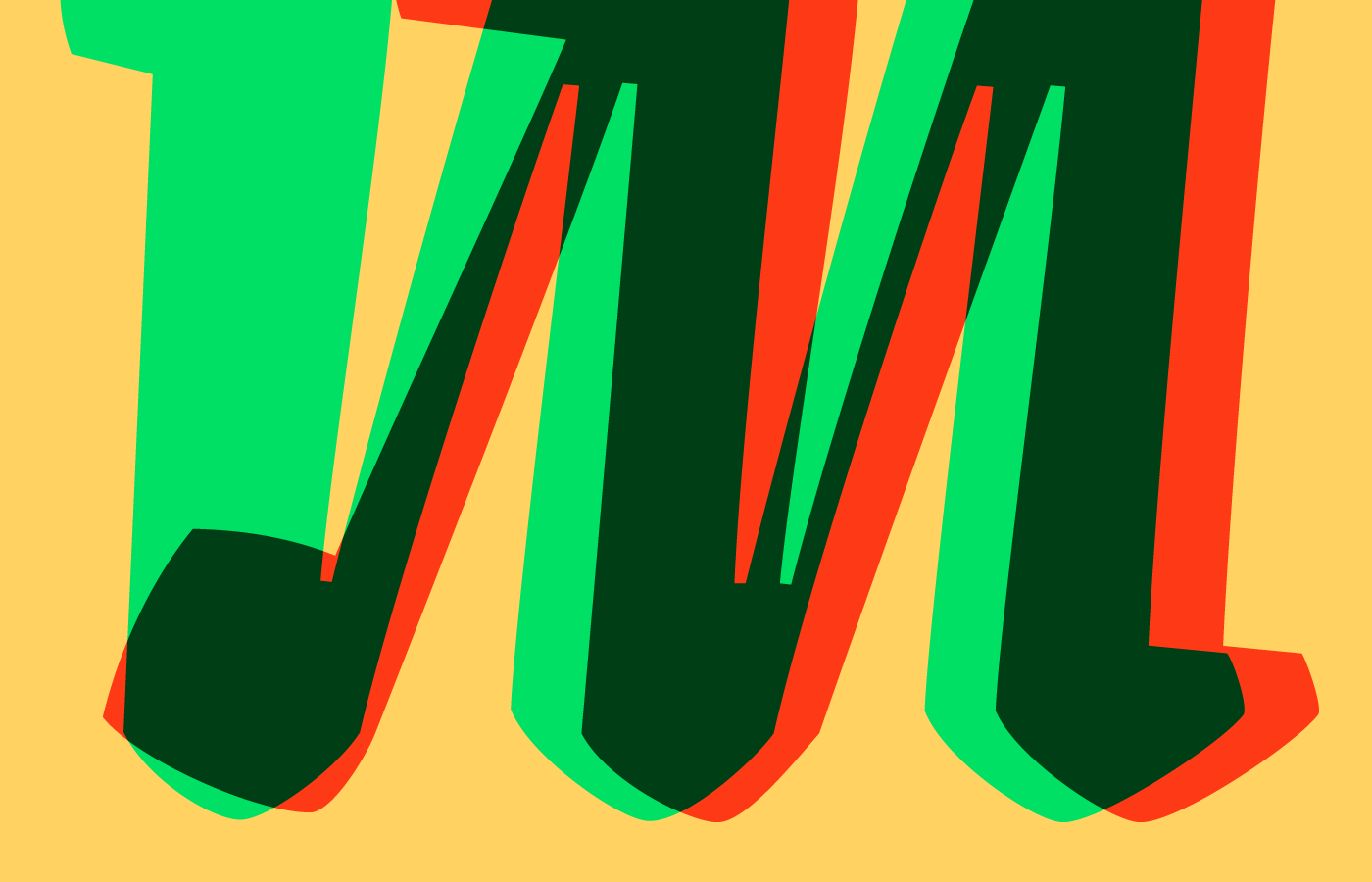
Making Type: Joana Correia of Nova Type Foundry
Welcome to the fourth in the Making Type series, where I ask type designers a few questions on fonts, design, process, and creativity. My hope over the years with this blog has been for it to be a resource for inspiration and education on how to, well, make type work. This series focuses on how the people behind the fonts themselves get inspired and what drives them to create.
Joana Correia is a type designer originally from Porto and now based in Vienna. She runs Nova Type Foundry, cultivating sunny fonts for warm humans. She is multitalented with an MBA and Executive Coaching degree informing her practice. She also started a new project recently — Ligado Studio — which we’ll hear a little more about in the interview!
I love the warmth and personality of Joana’s fonts, and it’s great to have them available in the Adobe Fonts library. I often find myself reaching for them and was thrilled to get ask her some questions!
What was the initial spark that got you into type?
As a child I was an avid reader, and always loved beautiful handwriting. I was drawn to letters more than images from a very young, but back then I had no idea what graphic design or typography were. I studied architecture and only later graphic design. So my first contact with type design came much later during my typography classes with Dino dos Santos, a type designer from Porto. I was immediately drawn to letter shapes, and to the process of designing with a font editor. It was a revelation for me.
Another event that sparked the idea that I could design typefaces came from a talk by Alejandro Paul from Sudtipos at my school. It got me hooked on commercial typefaces and handwriting fonts.
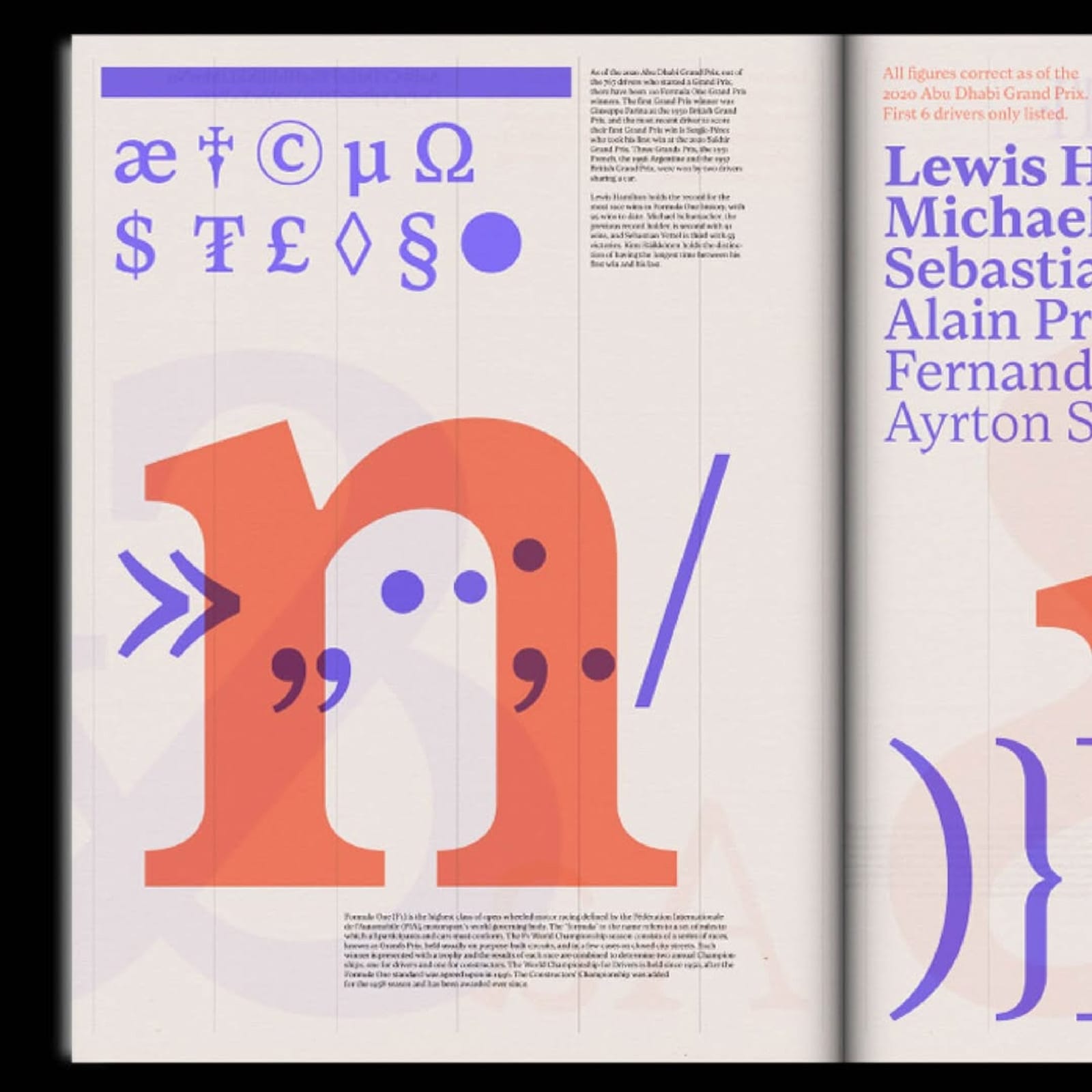
How did your time studying type design at the University of Reading shape your practice?
Studying at the University of Reading was crucial for my career. It was an intensive immersion on type design, through practice but also we were exposed to history and printed materials in amazing classes by James Mosley and Michael Twyman. During the year I learned how to see the patterns, connected them to history and to calligraphy, and create my view and expression in type design. We had many teachers but our main teacher was Gerard Unger who was an emphatic and inspiring teacher.
I’m curious how the type design scene is in Portugal. Do you find inspiration for your designs in your environment?
In Portugal, the type design scene is very fresh. Original digital type design started towards the end of the 90’s, with two main designers — Dino dos Santos (DSType) and Mário Feliciano (Feliciano Type). It was a small scene and not much going on. Rui Abreu was very inspiring in the 2000’s was starting amazing work.
Some of my typefaces have some inspiration from the retro style of design in Portugal, such as Laca and Lemongrass. I get inspired from shapes and ideas more than history though.
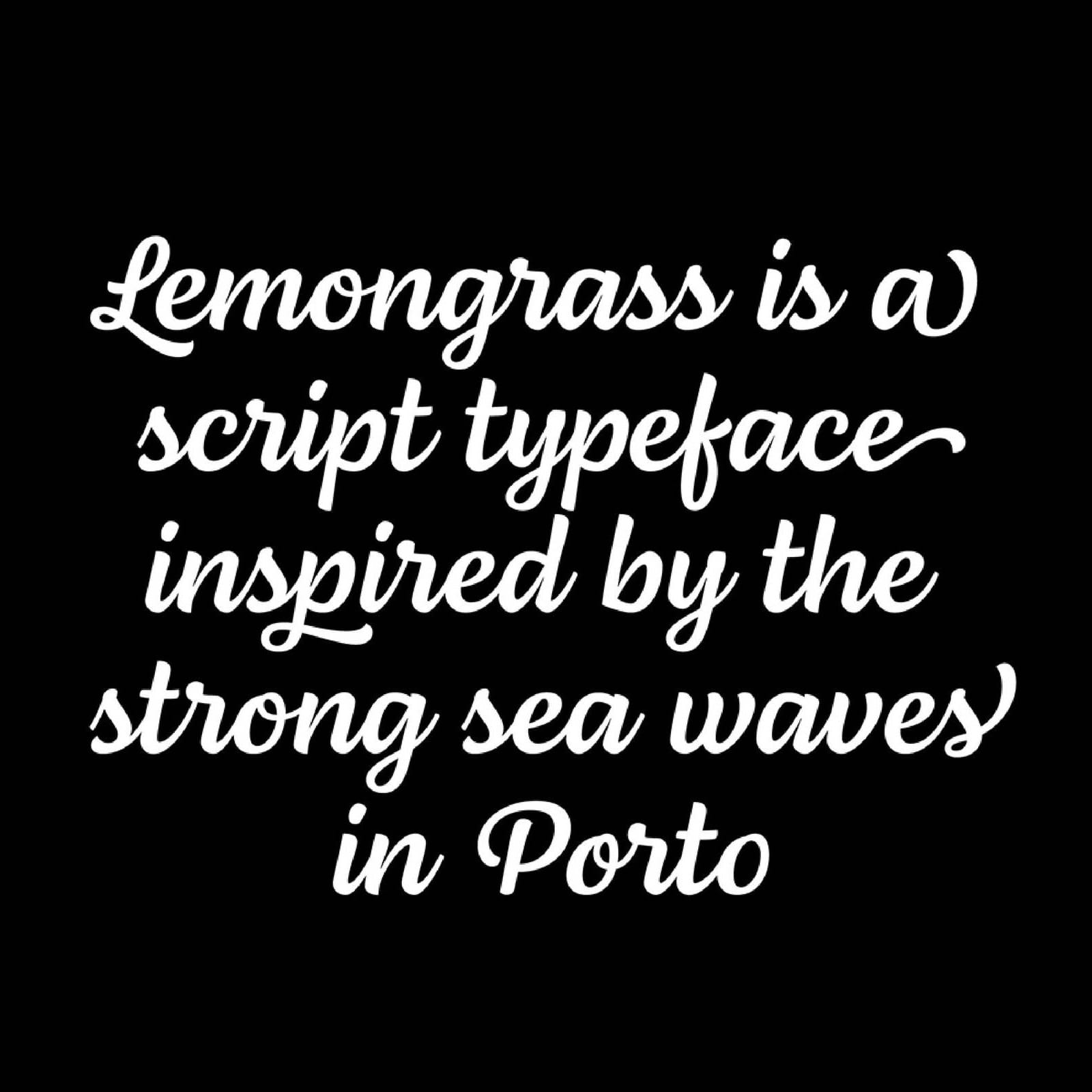
How do you navigate the complexities of designing across multiple languages and writing scripts?
When I was in Reading I wrote my Master’s thesis about Devanagari type, and designed a couple of typefaces for that script. I also designed Karma Devanagari together with Indian Type Foundry.
For scripts you are not familiar with you need to immerse yourself in visual material, in documents, in handwriting samples, and also practice yourself calligraphy for the script. All of this brings knowledge that allows you to design quality work. Nowadays I am focused on Latin, Cyrillic and Greek. The work here is similar, it needs some practice, research, and guidance from peers to achieve a great result.
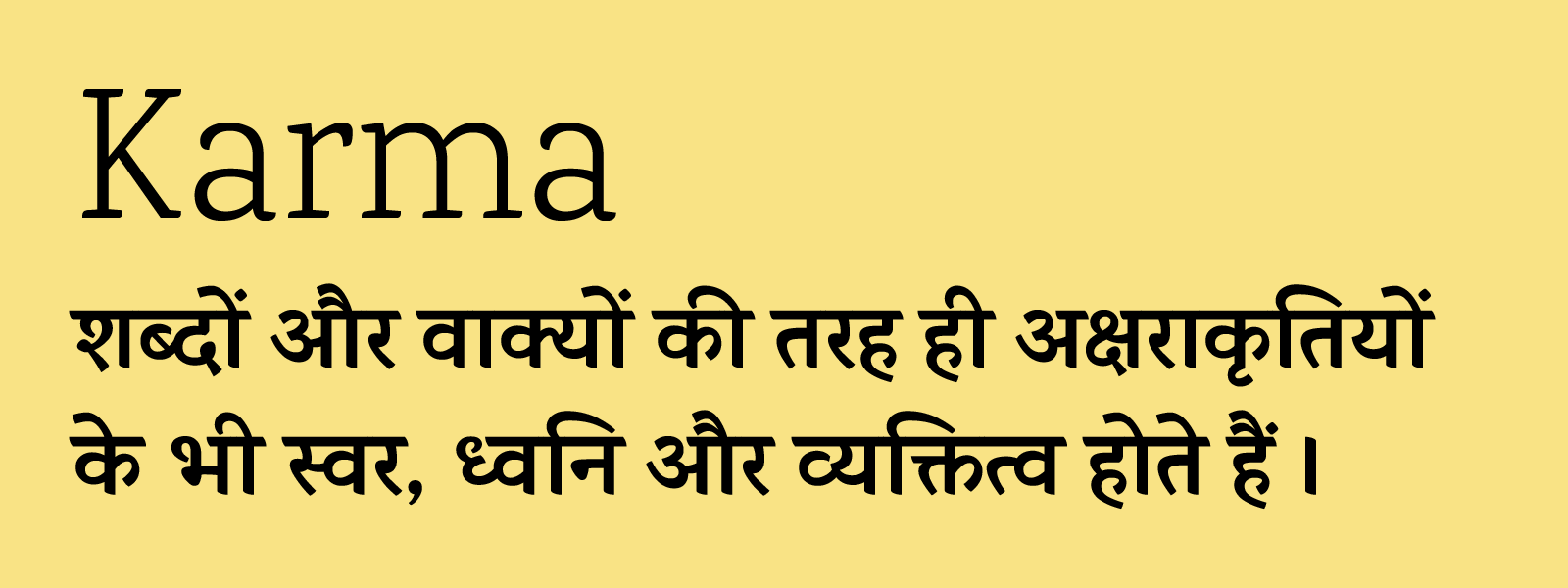
You recently launched a new project: Ligado Studio. I’d love to hear about how you’re helping other Foundries
Yes, besides running my foundry NTF, Paley Dreier and I launched Ligado Studio. We wanted to bridge the gap between craft and business in the type industry. Nowadays to stand out a foundry needs to reflect and plan for the library, drive the marketing, and manage the whole operation. Most of the time this all falls on a small team. That’s where we come in as partners to help grow foundries, and help them create a new level of intentionality in their business to reach new heights. We partner on marketing, communication, strategy, and planning. We’re here to provide frameworks and support to implement that strategy ahead too.
How do you stay creatively satisfied?
For me creativity is a way of living. I find it’s part of me whether it’s designing a new typeface, or finding ways to help a new foundry set up. I like to stay fresh by reading a lot, trying to stay up to date with the creative industry, technology, and business. I also love to be inspired by cities — right now I’m living in Vienna which inspires me with all the beautiful signs, culture and museums. and back in Porto with the design vibe that is all around. I like writing and I have a newsletter about many different subjects.
I’m also a people person, so what also inspires me is to be with people in person and online to discuss ideas. We’re doing this now with our Ligado type salon’s, where type designers from around the world gather to share ideas and challenges.